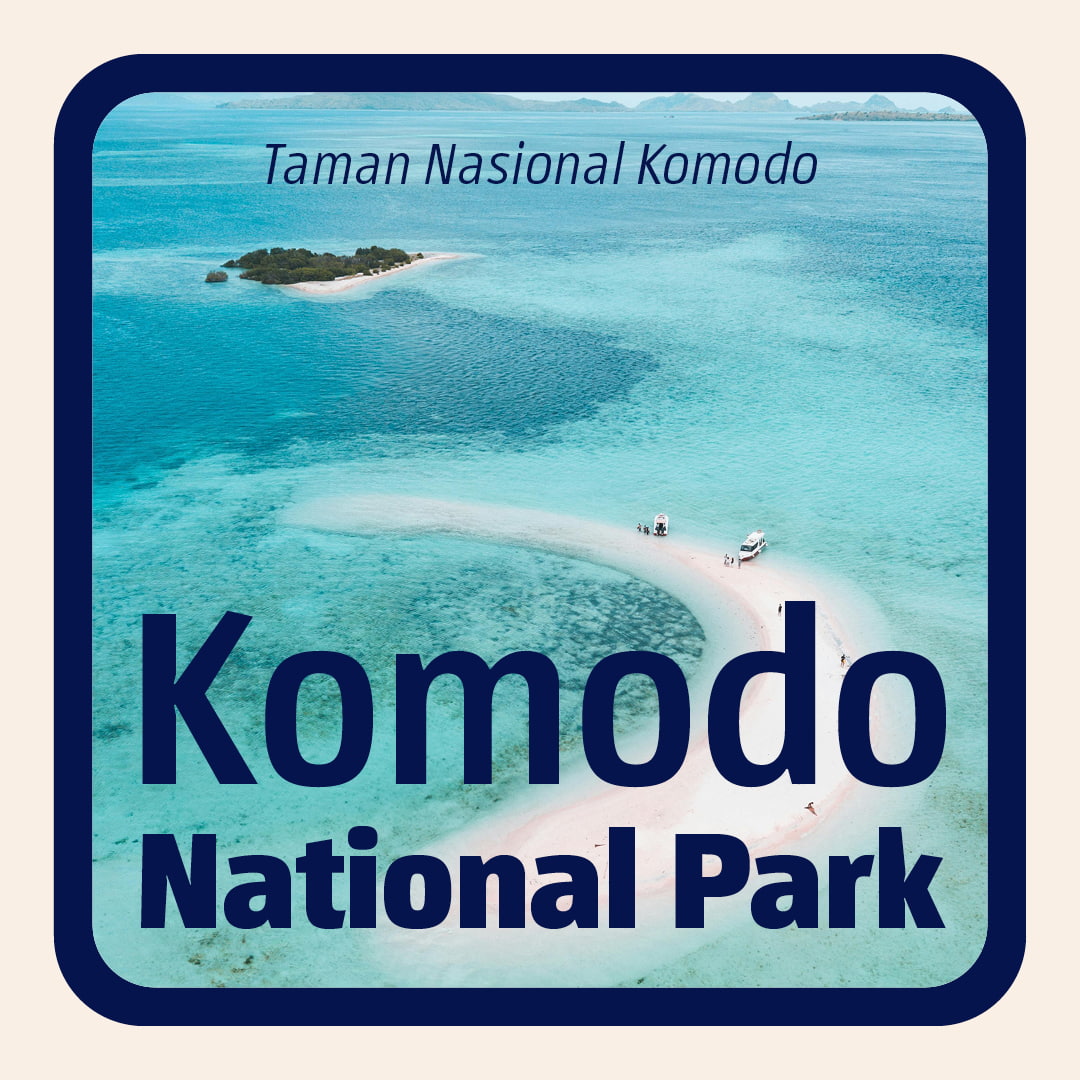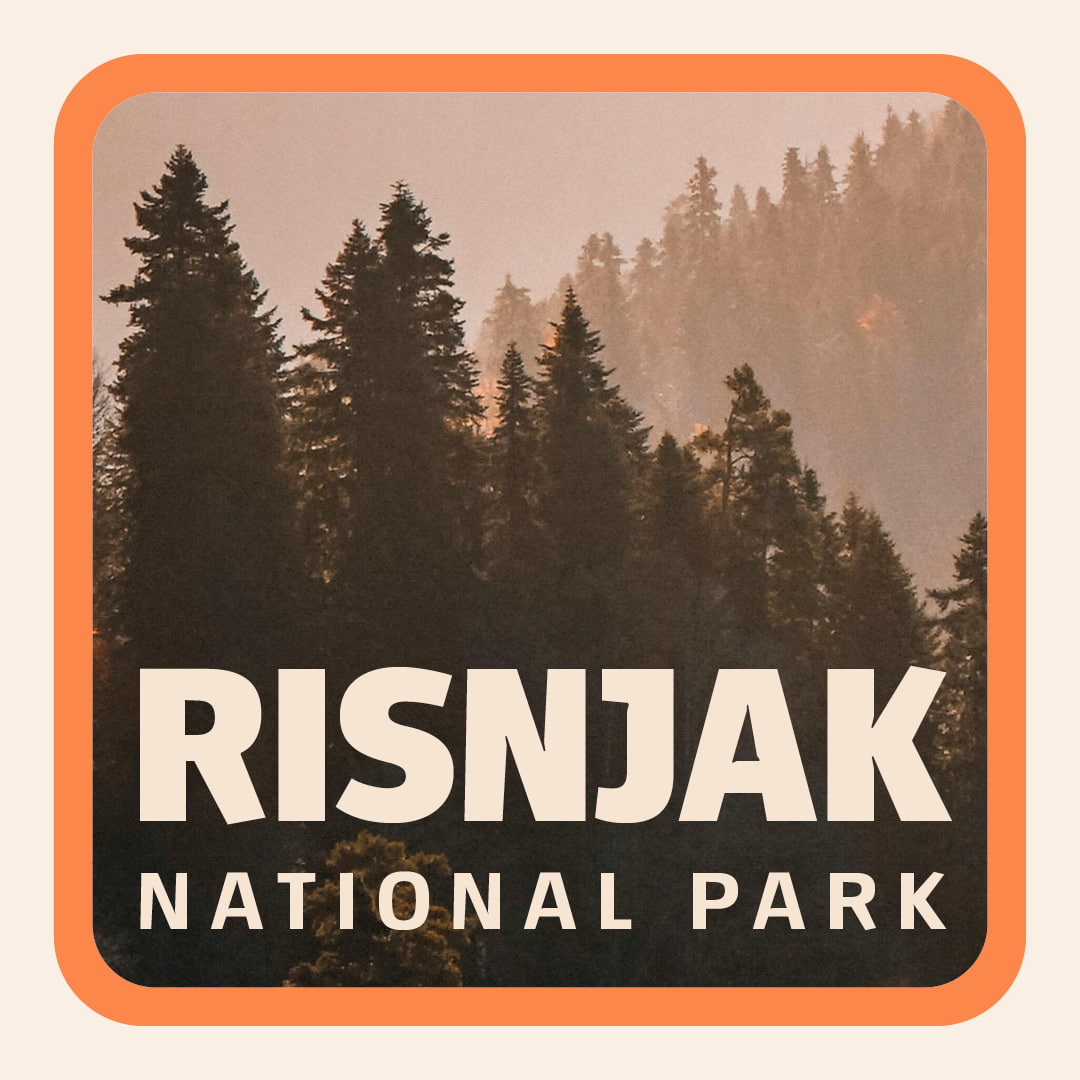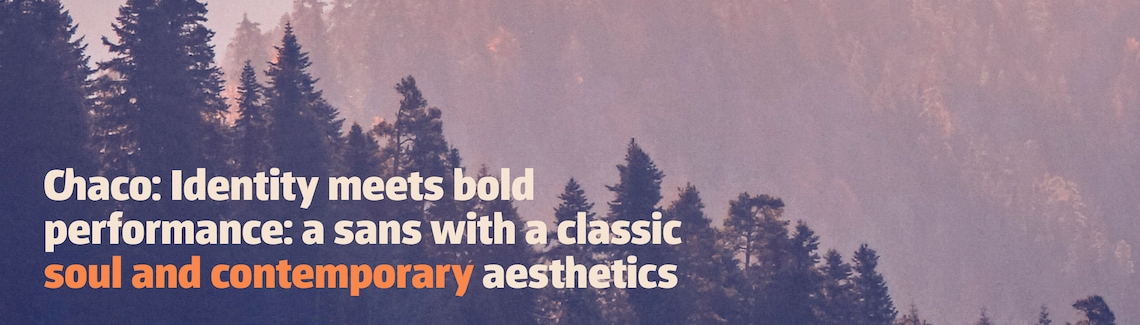
We are delighted to announce Rubén Fontana’s Chaco font family as part of the TypeTogether catalogue.
We recently hinted at Chaco’s release, and we’re excited to announce it is finally here! Rubén Fontana is a renowned Argentinian graphic designer, typeface designer, educator, and co-director with Zalma Jalluf of the FontanaDiseño studio. For decades his work has been — and still remains — a reference point in Latin America and Spain of what great design and influential identities can be.
With Chaco, Rubén has injected intentionality and a sense of place into the modern sans category. It was designed by paying close attention to two specific levels of function and aesthetics: the high-level concept of corporate identities and the rubber-meets-the-road functionality of an easily-read text family.
Combining aesthetic needs for identities, international wayfinding research, and the extreme details needed for small text, Rubén Fontana’s Chaco font family is an outrageously contemporary offering from classic roots. It has a repertoire of seven weights plus matching italics — packed in static fonts or as a variable font — that increase its ability to compose headlines and texts for mass media, particularly newspapers and periodicals. His solution is also a pitch-perfect typeface for identity and branding work, wayfinding, and composing immersive reading texts.